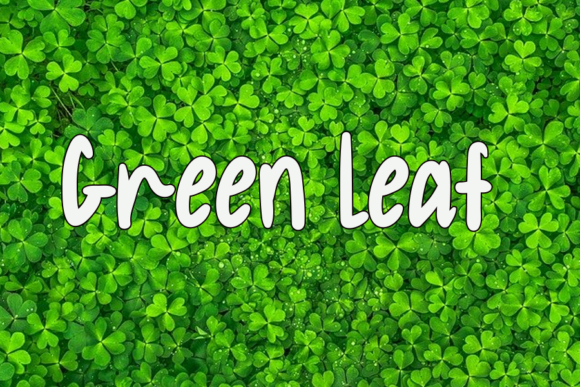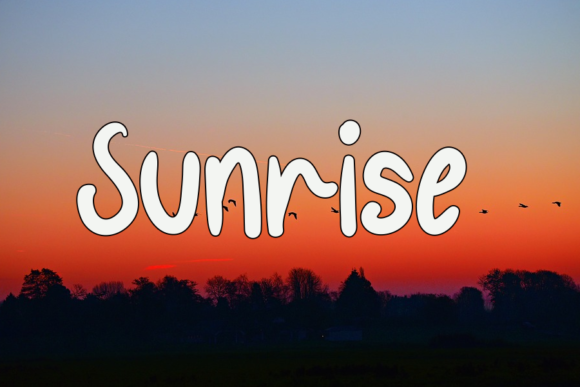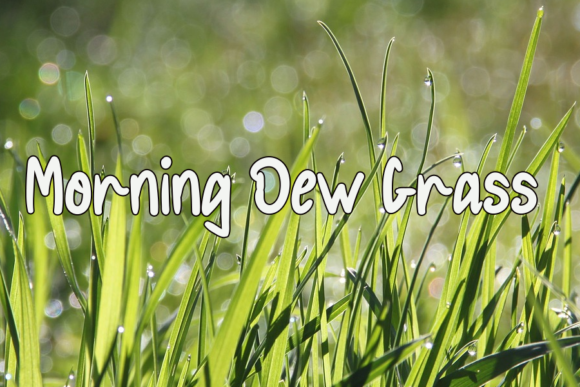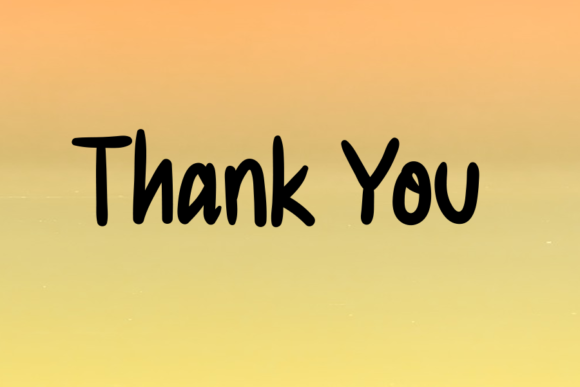
Welcome Summer Font
About Welcome Summer Font
Welcome Summer is a fun, friendly and whimsical script font. This font was particularly crafted for those who need a beautiful and refreshing look to their designs.